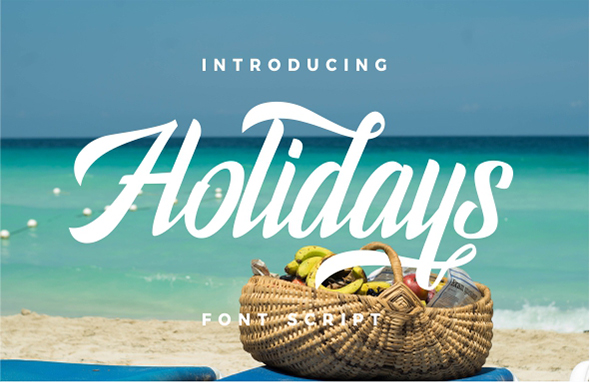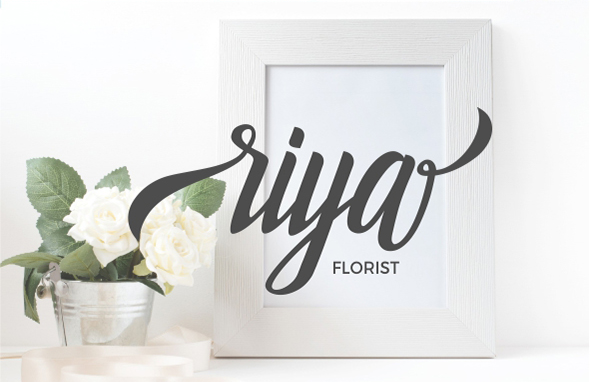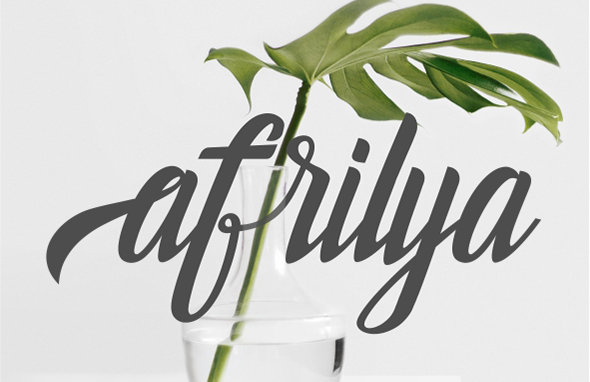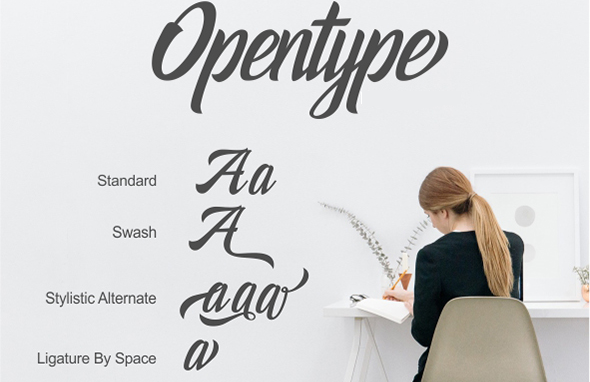
Discover the Magic of Holidays Typeface Font
There’s something special about sitting at your desk, surrounded by scraps of paper, paint swatches, and half-finished designs, waiting for that elusive spark of creativity to strike. And when it does, the possibilities are endless. You envision a beautiful, hand-painted script font that captures the essence of a bygone era, transporting your audience to a world of wonder and enchantment.
This is where the Holidays Typeface Font comes in – a stunning, hand-painted script font that’s perfect for creating one-of-a-kind designs that evoke a sense of nostalgia and whimsy. With over 100 stylistic alternate characters to choose from, the Holidays Typeface Font is a versatile tool that can add a touch of magic to any project, from wedding invitations to holiday cards.
Holidays Typeface Font Key Features
- Font Family: Holidays, Holidays Alt, Holidays Bold, Holidays Bold Alt, Holidays Condensed, Holidays Condensed Alt, Holidays Italic, Holidays Italic Alt
- Unique Characteristics: A playful, handwritten font with a festive feel, perfect for holiday-themed designs and projects
Holidays Typeface Font Review
I recently had the chance to work with the Holidays Typeface Font, and I must say it’s a mixed bag. On the one hand, I think it’s a great choice for holiday-themed projects. ✨ The font’s festive feel and whimsical flair are perfect for capturing the spirit of the season. The bold, playful lines and intricate details make it a great fit for posters, social media graphics, and other promotional materials. ✨
However, I do have some reservations about the font’s versatility. ⚠️ While it’s great for holiday projects, I’m not sure it’s the best choice for more formal or professional work. The font’s playful nature might come across as unprofessional or even childish in some contexts. Additionally, the font’s complexity might make it difficult to read in smaller sizes or at a distance. ⚠️
Overall, I think the Holidays Typeface Font is a great choice for holiday-themed projects, but it’s not a one-size-fits-all solution. With some careful consideration of the project’s tone and purpose, it could be a great addition to your design toolkit.
Here are some key takeaways:
- Perfect for holiday-themed projects
- Whimsical and festive feel
- Great for promotional materials and social media graphics
- May not be suitable for formal or professional work
- Complexity might make it difficult to read in smaller sizes
Some tips for getting the most out of the Holidays Typeface Font include:
- Using it for holiday-themed designs, such as Christmas or Halloween cards.
- Combining it with other festive fonts for a unique look.
- Using it for titles and headings to add a touch of holiday cheer.